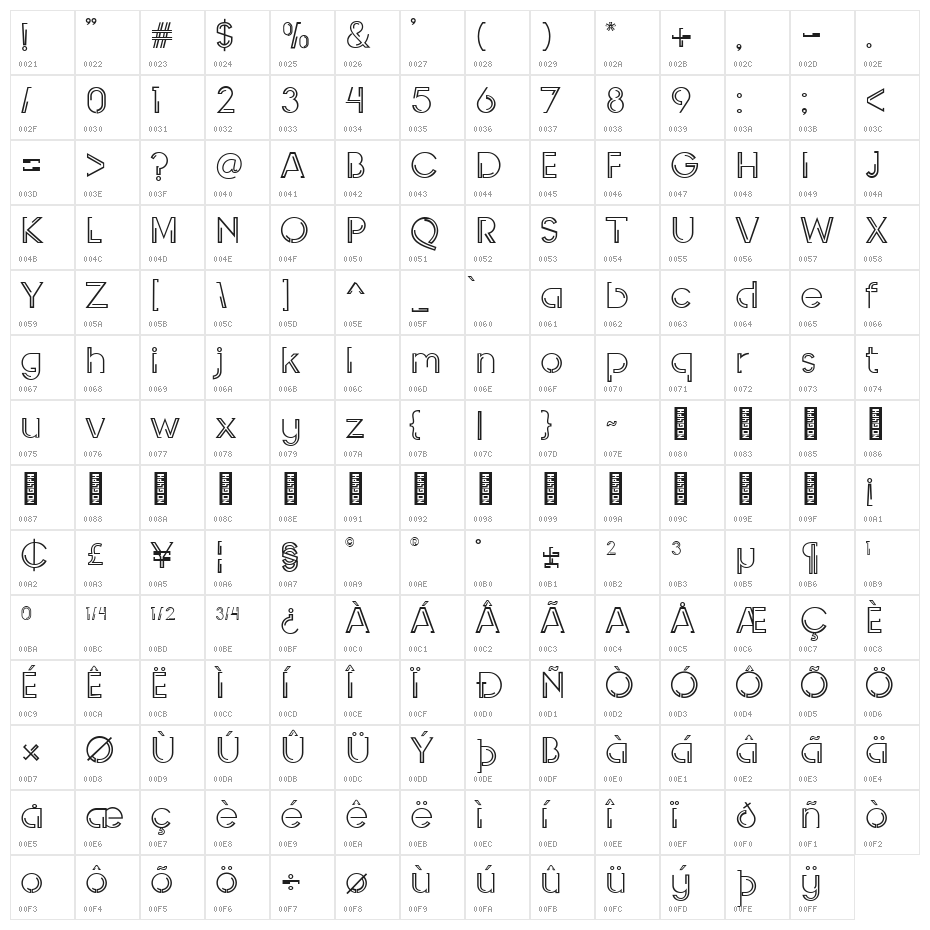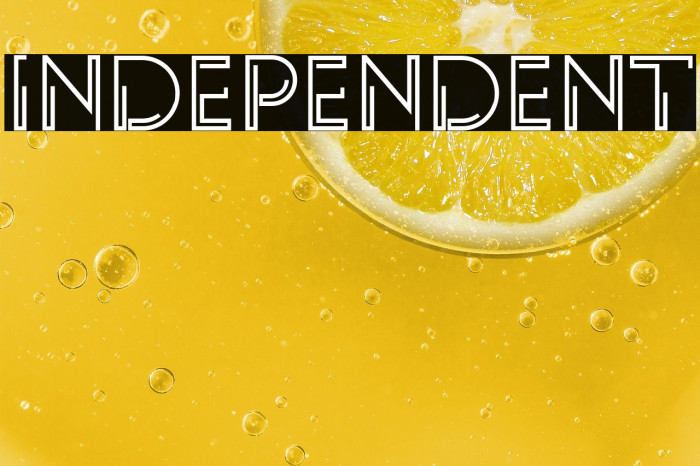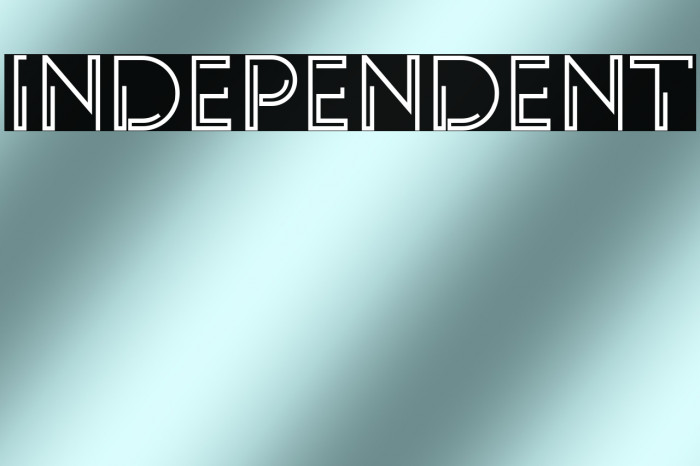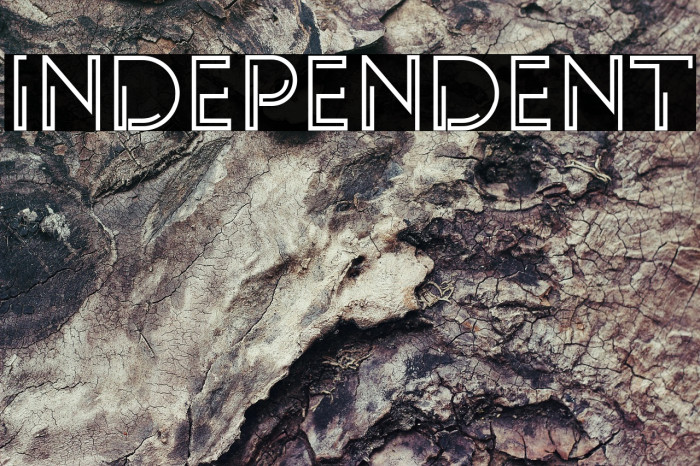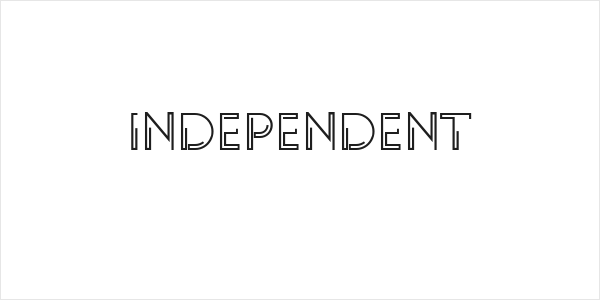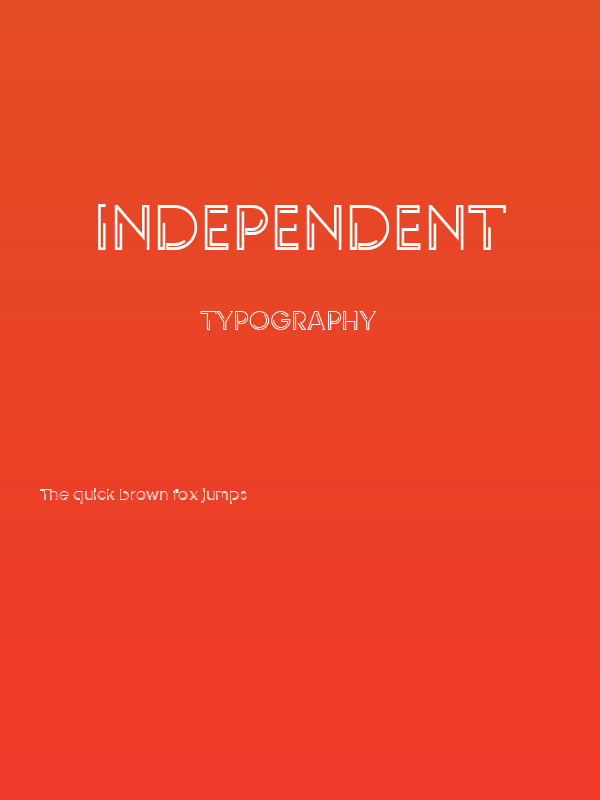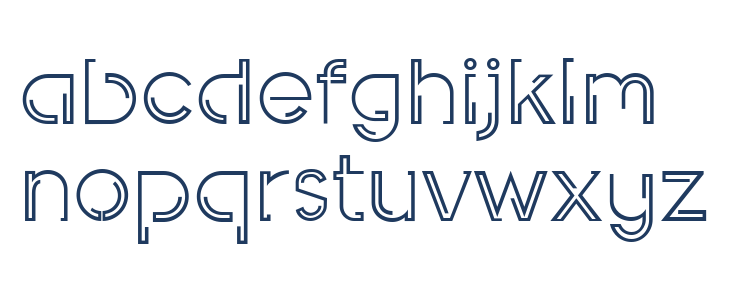
INDEPENDENT Font
INDEPENDENT Description
This font features a modern, geometric design with a unique cut-out effect on each character. The uppercase and lowercase letters maintain a consistent style, characterized by clean lines and sharp angles. The numbers and special characters follow this geometric theme, providing a cohesive look throughout. The font's open spaces and minimalistic approach give it a contemporary feel, making it suitable for a variety of design applications. Its distinct style is eye-catching and can add a modern touch to any project.